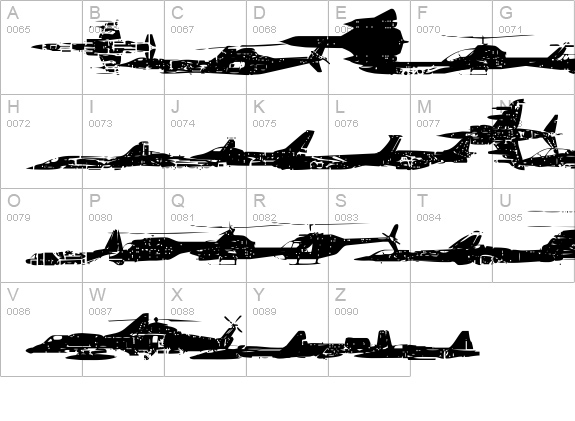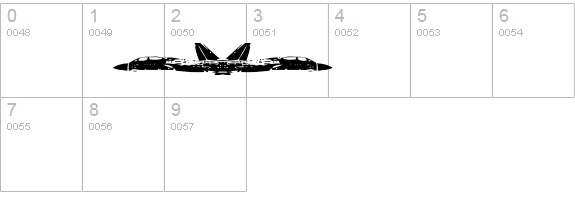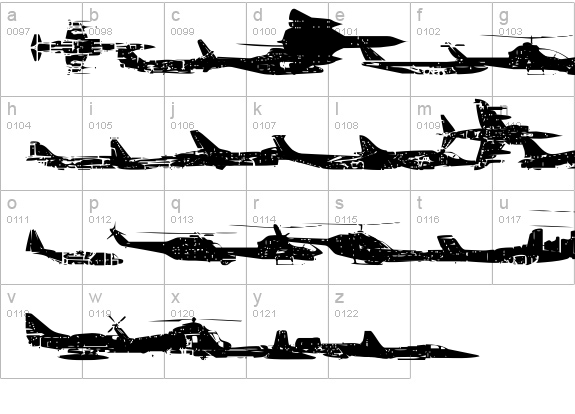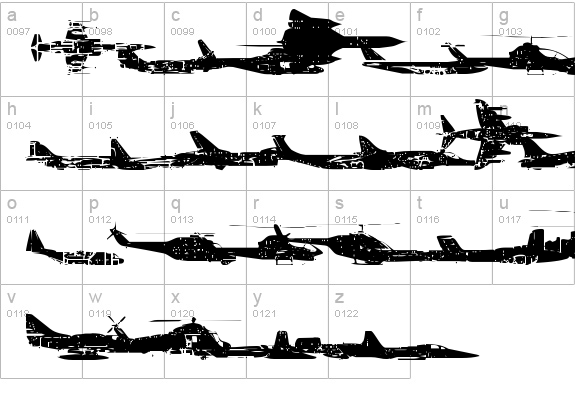
Air Force Font Details
The Air Force font exudes strength, precision, and boldness, echoing the spirit of the elite aerial warriors it is named after. Its sleek lines and sharp angles convey a sense of power and authority, making it the perfect choice for projects that demand a commanding presence. Whether you're designing military-themed graphics, creating motivational posters, or crafting futuristic branding, Air Force font will help you soar above the competition. And the best part? Air Force font is available for free download at FontsMarket.com, allowing you to access this high-quality typeface without breaking the bank. Embrace the power of Air Force font and take your designs to new heights today.